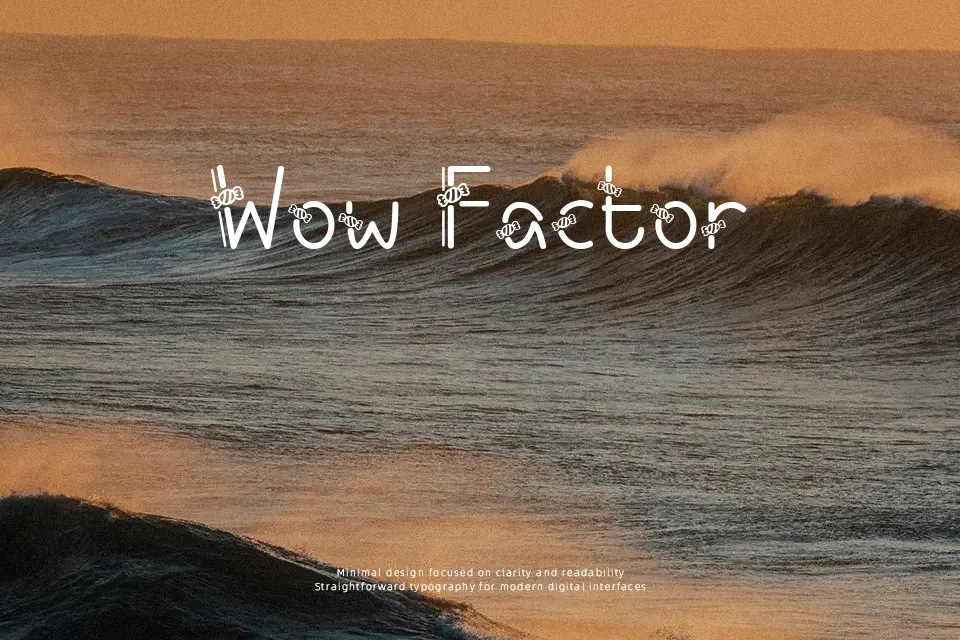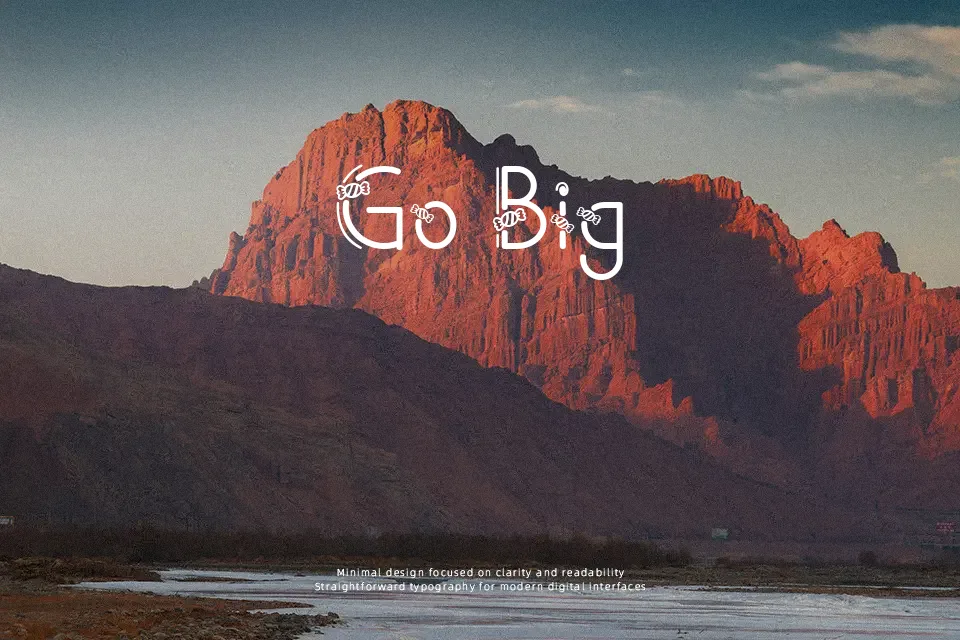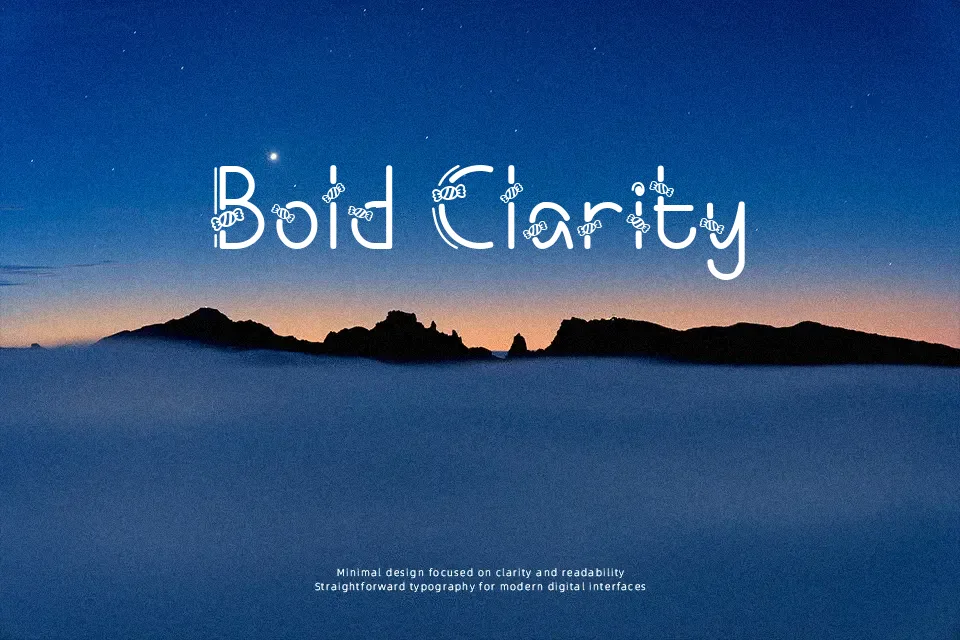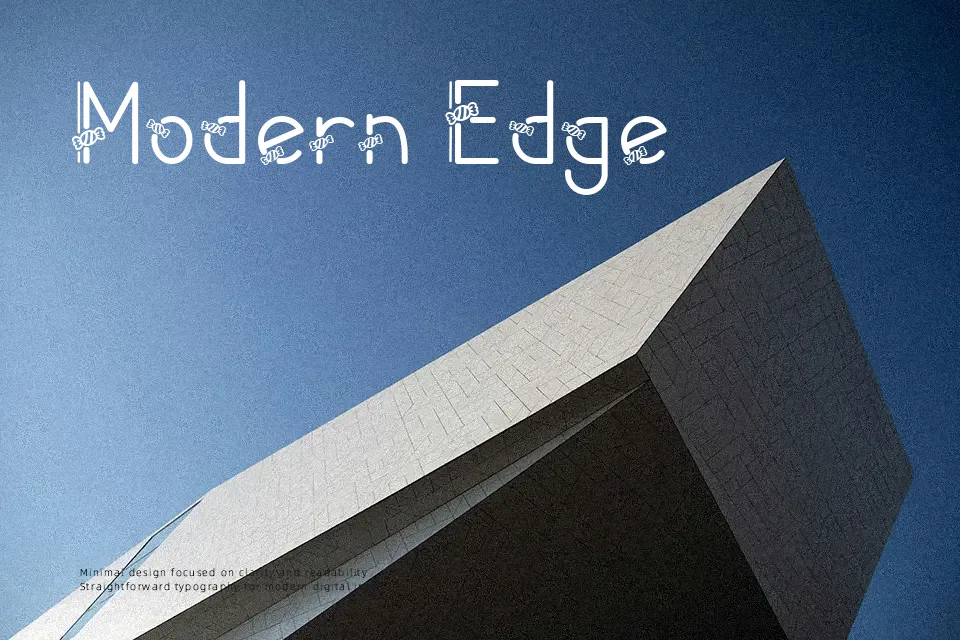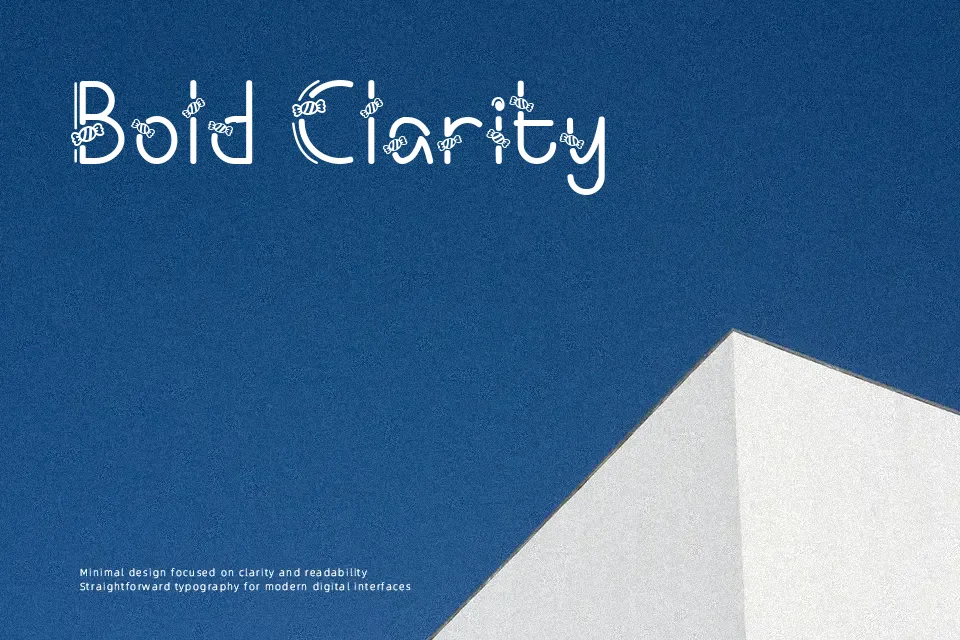
Candy Ai Font
Designed by Aisyah
Candy Ai has soft, rounded curves, fairly even strokes, and generous spacing that keeps the letters readable while still looking like hand-drawn candy lettering. It leans into a decorative display style rather than text work, with bubbly forms that suggest packaging for sweets, children’s crafts, and lighthearted holiday pieces more than serious layouts. On banners, posters, and labels where you only need a few words, it gives a fun, sugary accent without feeling too messy. For longer paragraphs, small sizes, or formal branding, the same playful details can quickly feel tiring and unprofessional, so it works best as a sparing headline or logo accent paired with a simpler companion font.
kids party invitations and cards
candy, bakery, or dessert shop logos and packaging
playful holiday tags and craft printables
social media posts with a sweet, friendly tone
formal corporate branding or serious editorial work
very small text on dense layouts
projects needing a neutral or highly professional look